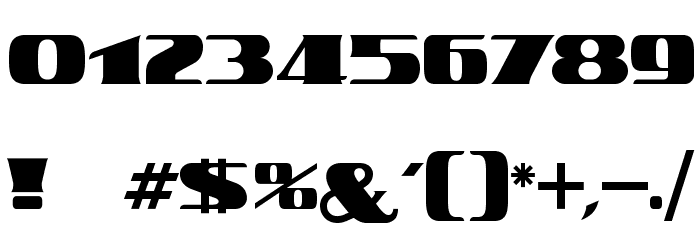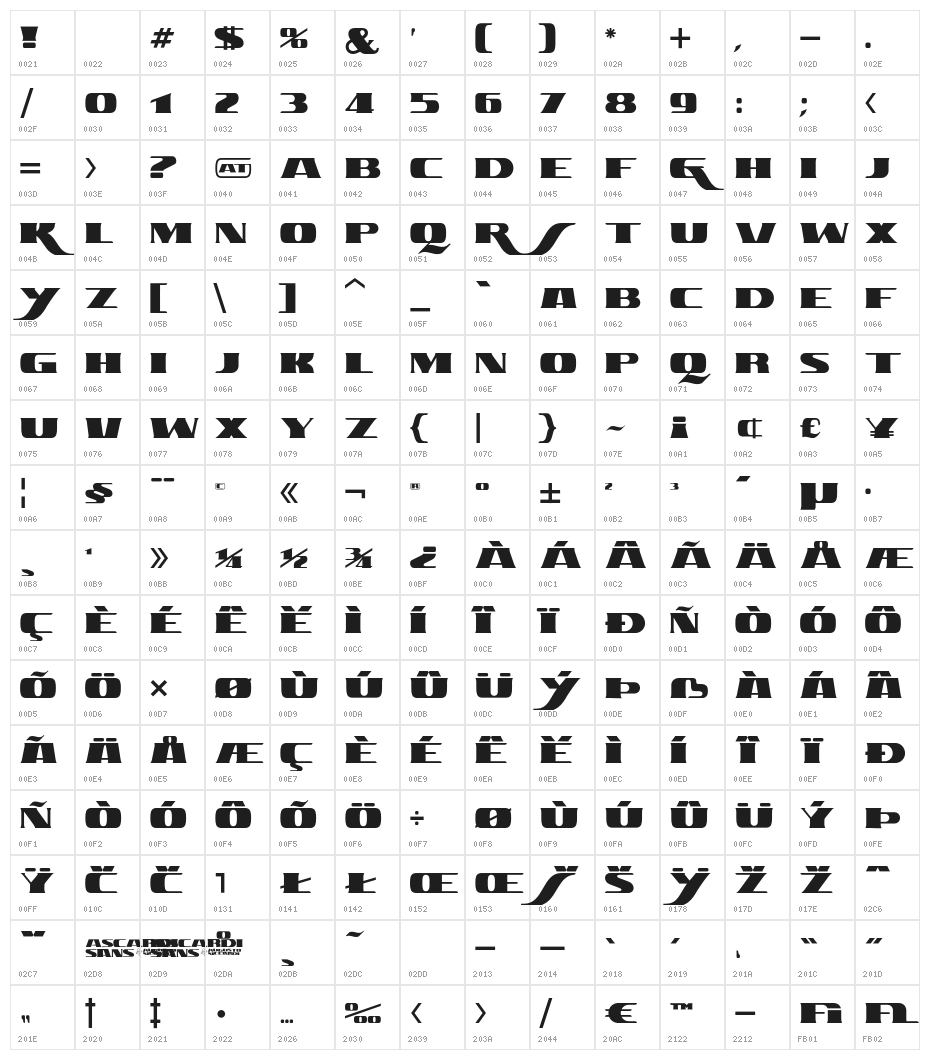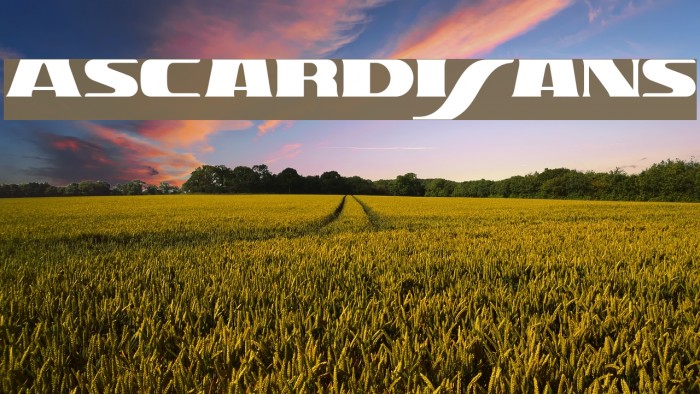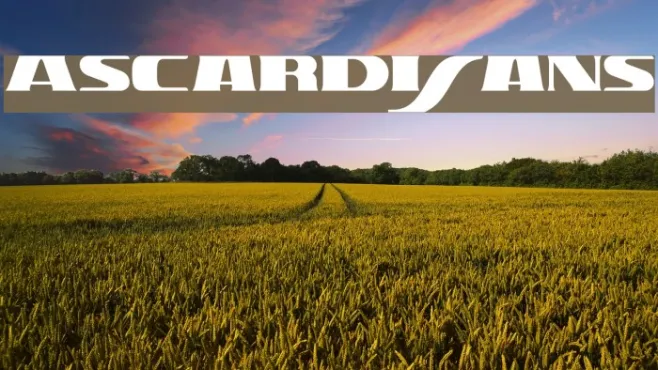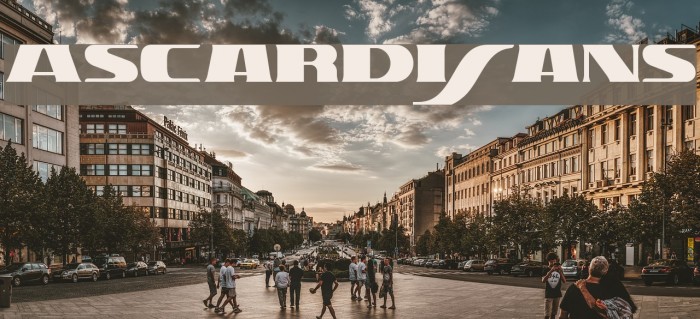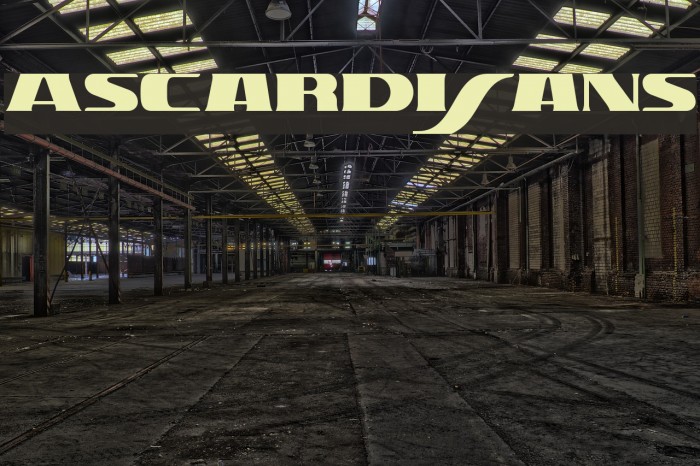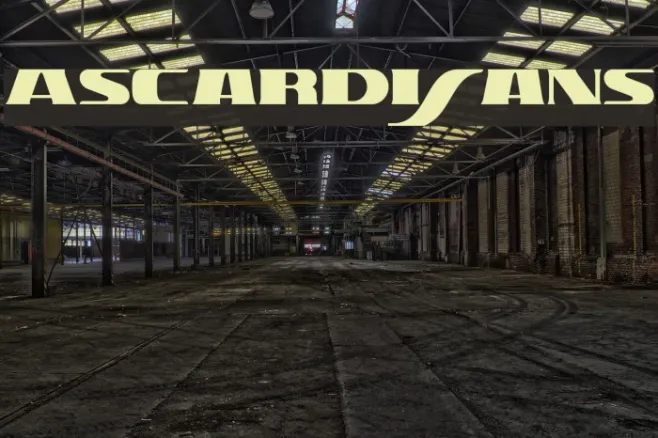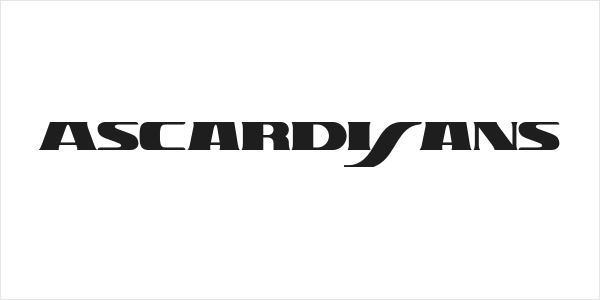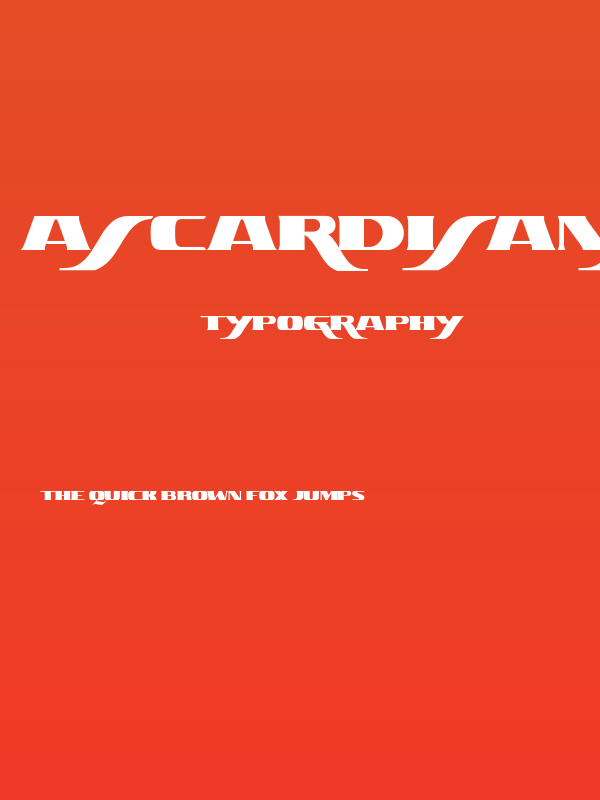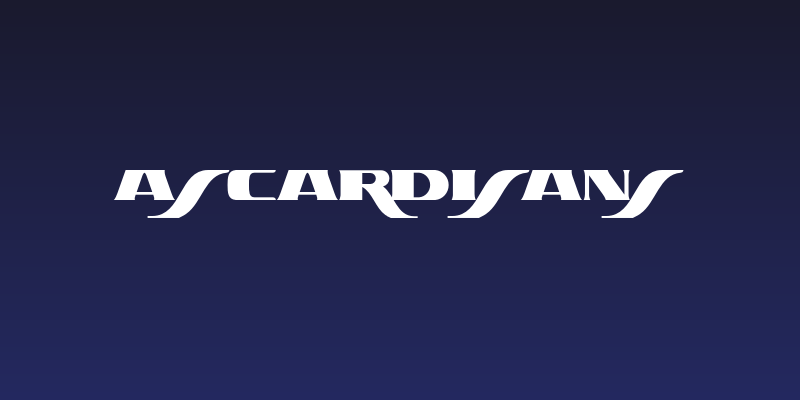
AscardiSans Font
AscardiSans Description
This font features a bold and dynamic design with sharp, angular edges and a futuristic aesthetic. The uppercase letters are particularly striking, with unique cuts and slashes that give them a sense of movement and energy. The numerals and special characters maintain this bold style, ensuring consistency across all glyphs. The font's strong presence makes it ideal for attention-grabbing designs, while its clean lines and modern look provide a sleek and professional appearance.
| Proposed Projects | Ideal for branding, posters, video game titles, and any project requiring a modern, impactful look. |